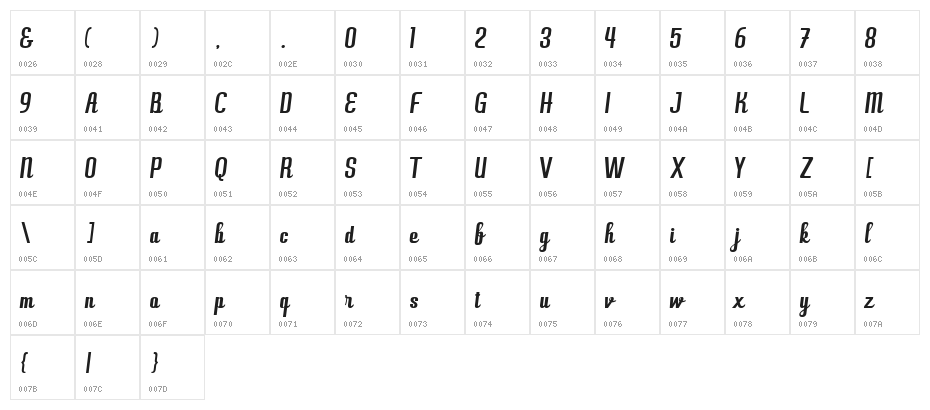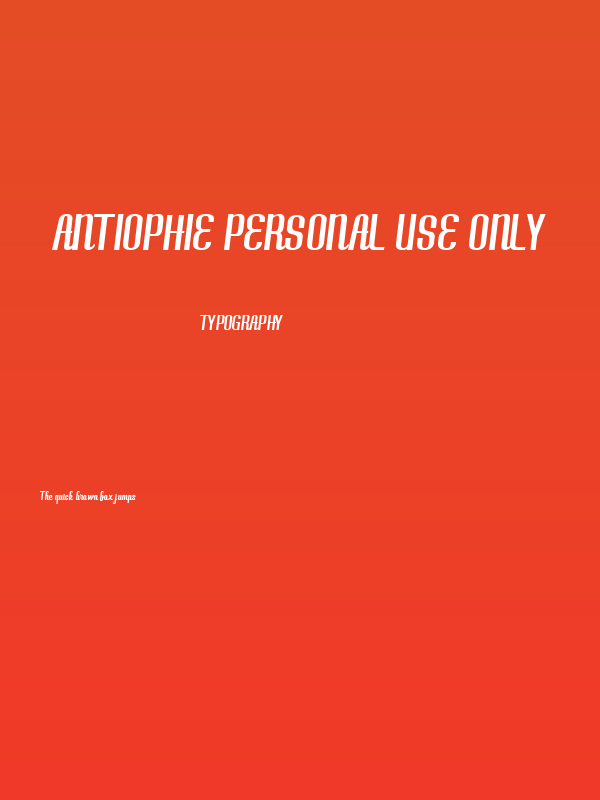
Antiophie personal use only Font
Antiophie personal use only Description
This font features a bold and dynamic style with a slight slant, giving it a sense of motion and energy. The uppercase letters are tall and narrow, with a consistent stroke width that adds to its bold appearance. The lowercase letters maintain the same energetic slant, with some characters featuring unique flourishes that add a touch of elegance. The numerals are consistent with the overall style, maintaining the bold and slightly condensed look. Special characters like the ampersand and punctuation marks are designed to complement the letterforms, ensuring a cohesive appearance across all text. This font is ideal for projects that require a strong and impactful visual presence.
| Proposed Projects | Ideal for branding, headlines, posters, and any design requiring a strong visual impact. |